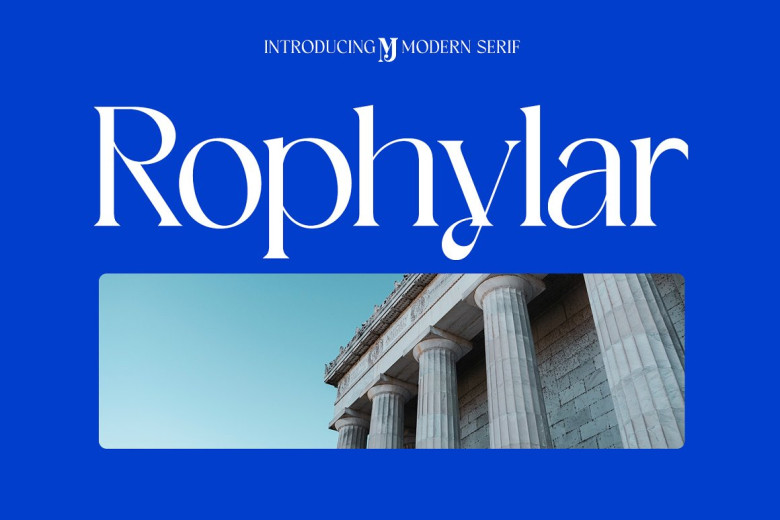
Rophylar Font
Rophylar is an elegant serif typeface with lots of charm. Featuring high contrast version, this retro yet contemporary font can be used for headlines, logos and pull quotes, making an ideal pairing with either basic sans serif fonts or light script fonts.
Rophylar Serif Font